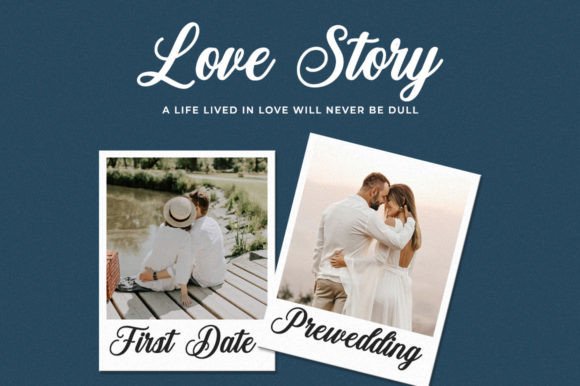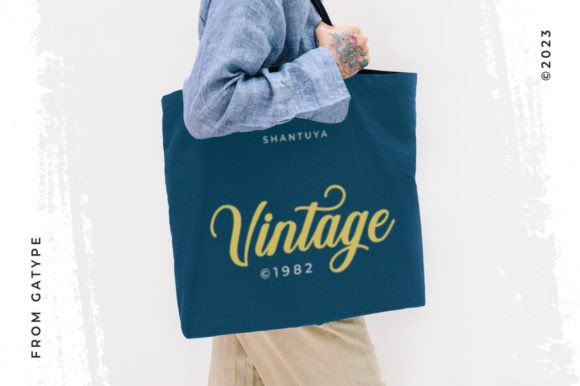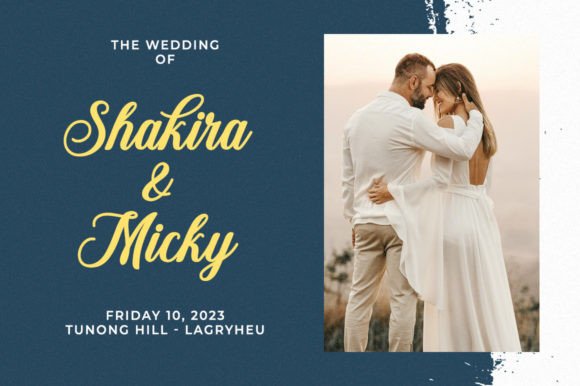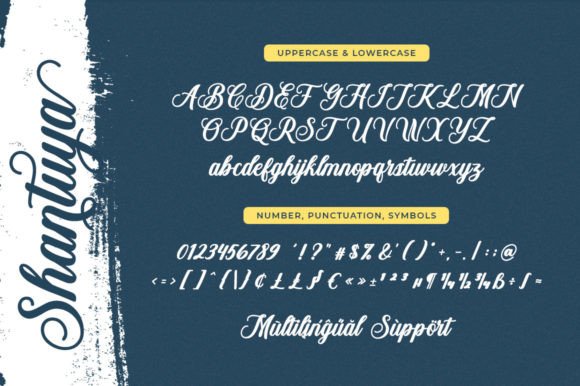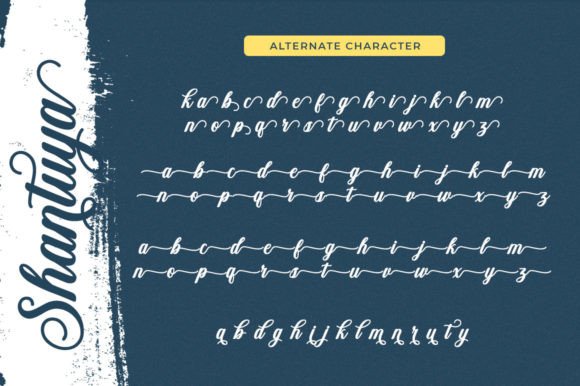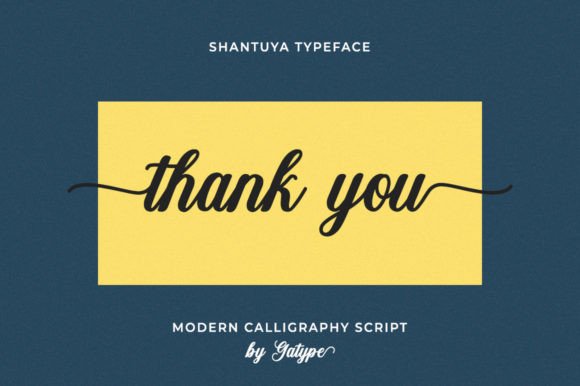
Introduction to Shantuya Font
Shantuya is a beautiful handwritten font.
Its casual charm makes it seem very down-to-earth, easy to read, and, ultimately, incredibly versatile Shantuya will look amazing in any context, whether itโs used on a busy background or as a standalone title.
Key Features of Shantuya Font